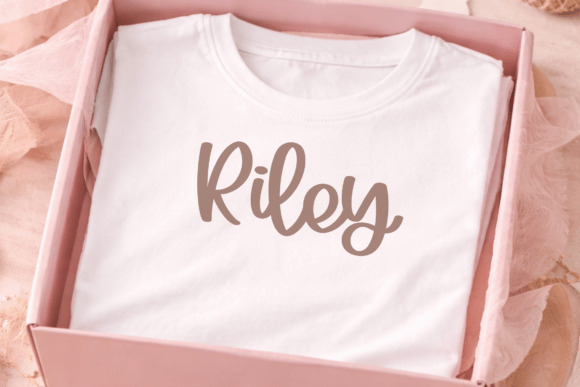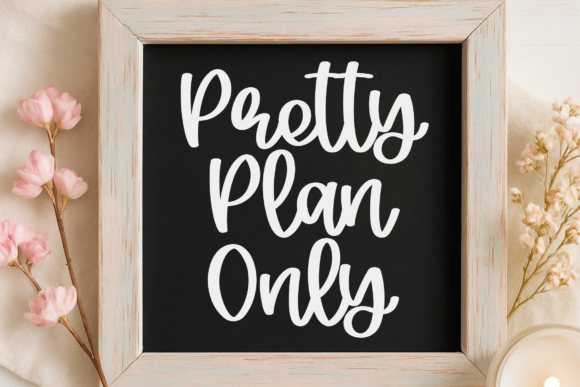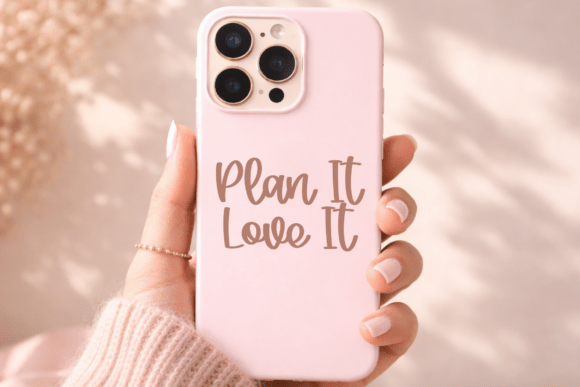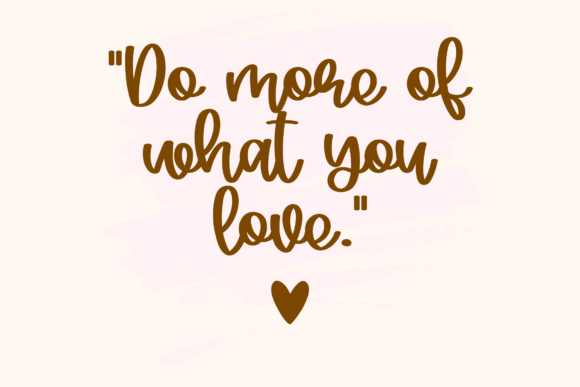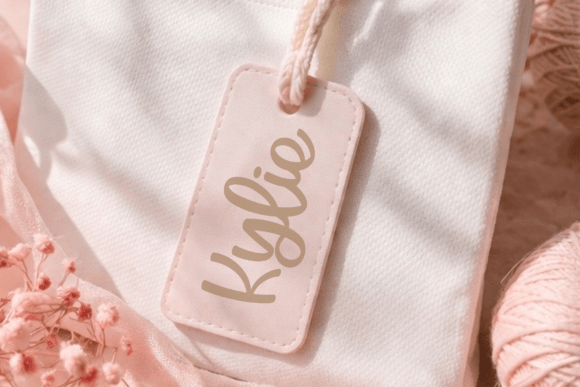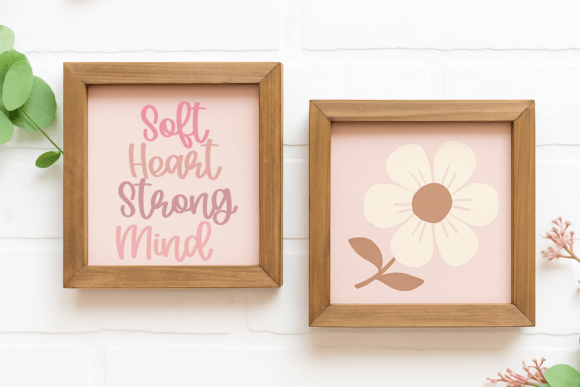
Have you ever been working on a design project, and you just can’t seem to nail the perfect look? You’ve tried a dozen different fonts, but nothing seems to capture the essence of your brand’s personality. That’s where the Auric Trace Font comes in – a playful and modern bouncy script font designed to bring energy and charm to your designs.
This delightful font is perfect for creative branding, social media content, and craft projects, adding a friendly and stylish touch that stands out beautifully in any design. With its smooth curves and lively letterforms, Auric Trace Font creates a fun and eye-catching look while still remaining clean and easy to read. Whether you’re a seasoned designer or just starting out, this font is sure to be a valuable addition to your toolkit.
- Unique Characteristics: Auric Trace Font features a distinctive, hand-drawn aesthetic with intricate details and subtle textures, giving it a unique and sophisticated look.
- Legibility and Readability: The font is designed to be highly legible and readable, with clear letterforms and generous spacing, making it suitable for body text and display use.
- Font Weight and Style: The font is available in multiple weights, from Light to Black, and various styles, including Regular, Italic, and Bold, allowing for a high degree of customization.
A Designer’s Review of Auric Trace Font
I recently had the chance to work with the Auric Trace font, and I have to say, it’s a mixed bag. On the one hand, there are some aspects that truly shine ✨.
- Unique Character**: The Auric Trace font has a distinctive, elegant feel to it. It’s perfect for projects where you want to convey a sense of sophistication and refinement.
- Good Legibility**: The font is highly legible, even at smaller font sizes. This makes it a great choice for body text, as well as headings.
- Wide Language Support**: The font includes a wide range of languages, including many non-Latin scripts.
However, there are also some limitations to consider ⚠️.
- Limited Glyphs**: While the font has a wide language support, it’s still missing some common glyphs, such as emojis and certain symbols.
- Not Suitable for Display**: The font is best suited for body text and headings. It’s not the best choice for display or title text, as it can look a bit too formal.
Overall, I’d say that Auric Trace font is a solid choice for the right project. While it may not be perfect, it’s a great option for designers who want a sophisticated, elegant look.
Tips for Getting the Most Out of the Auric Trace Font
Use the Auric Trace font for headings and titles to add a touch of elegance and sophistication to your designs.
Experiment with different font sizes and colors to create contrast and visual interest.
Use the Auric Trace font for:
1. Luxury branding and marketing materials.
2. High-end product packaging and labeling.
3. Elegant wedding invitations and stationery.
Alternatives to Auric Trace Font
Ostrich Sans is a modern sans-serif font suitable for digital interfaces, logos, and body text. It is highly legible and versatile, making it an excellent choice for a wide range of applications. In comparison to Auric Trace Font, Ostrich Sans is more geometric and clean, while Auric Trace Font has a more stylized and vintage feel.